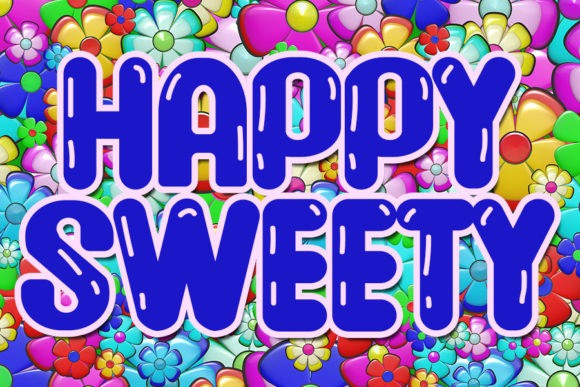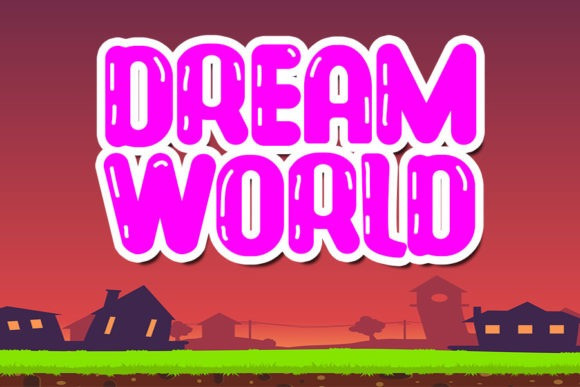
Bubble Shooter Font
Bubble Shooter Font is a cute, fun and friendly display font. Add to each of your party invitation, swimming gathering or pretty much any design that requires a touch of youth and joy.